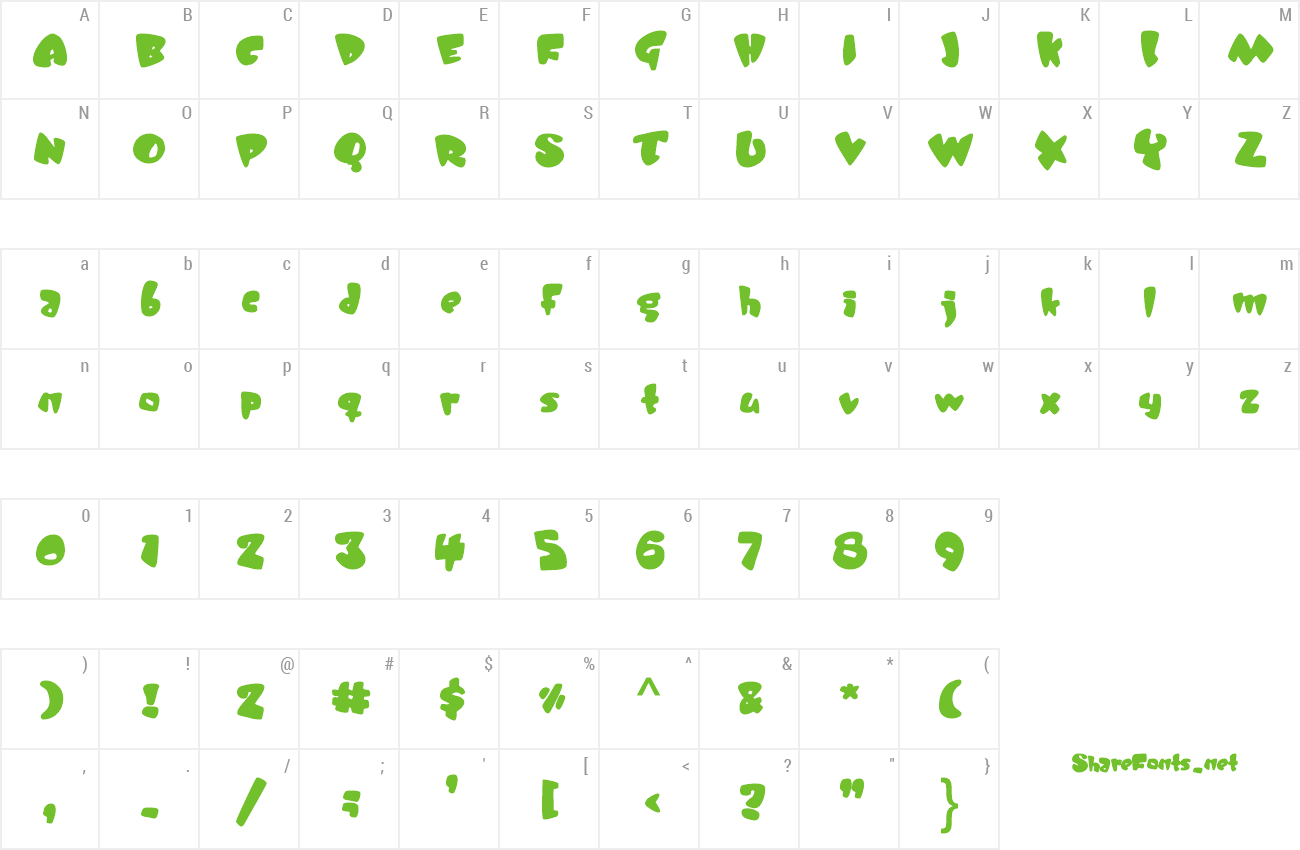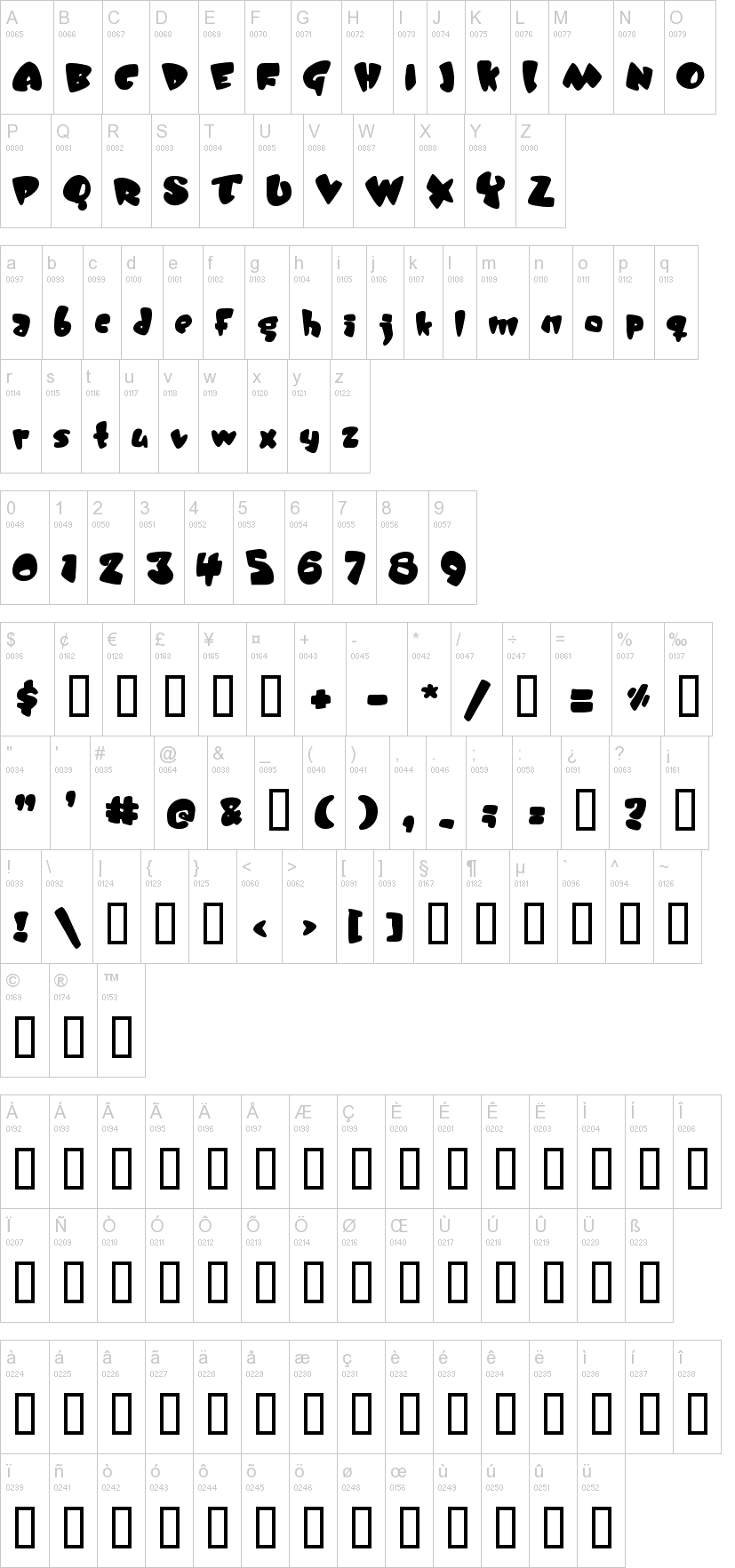
Jelly Belly Font
Jelly Belly Font - Web perfectly imperfect and rounded with love, this cute new favorite will be a wonderful addition to your collection!what's. Web download the jelly belly font by pizzadude. The jelly belly font has been downloaded 16,116 times.